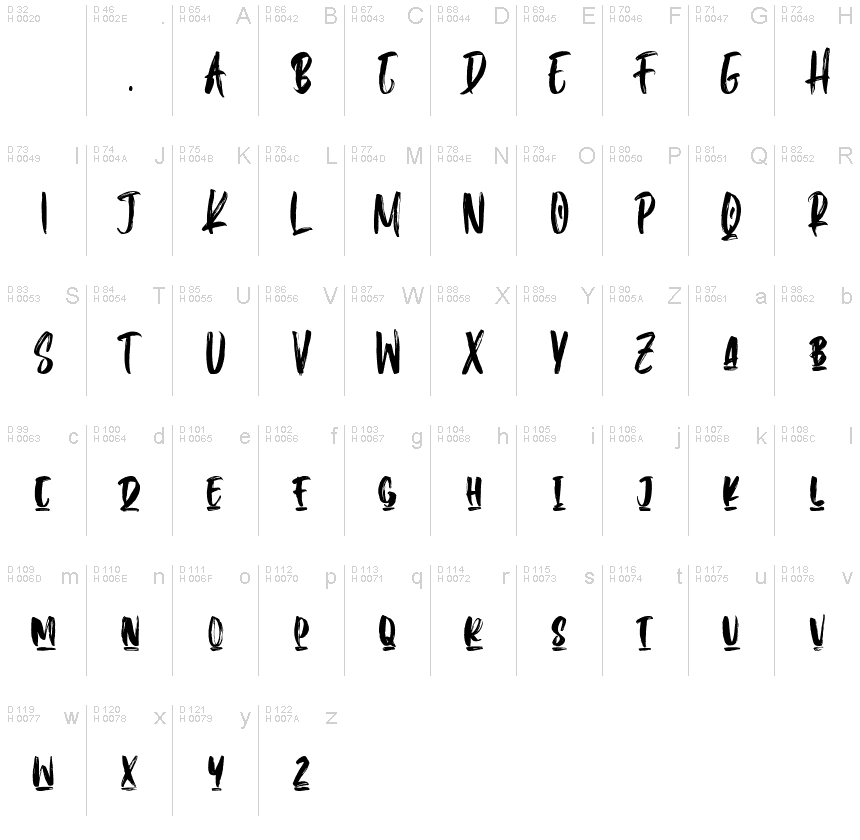
Semientz Free Regular
Semientz, designed by Maulana Creative, is an exquisite brush font that exudes boldness and personality. Its condensed width adds a touch of elegance and sophistication to any design project.
Perfect for fashion editorials, modern logos, or urban-themed websites, Semientz effortlessly captures attention and creates a memorable brand presence. With its expressive brush strokes and strong visual impact, this font is also ideal for creating eye-catching social media graphics or striking event posters that demand instant recognition.
Let Semientz elevate your designs with its captivating charm and artistic flair.